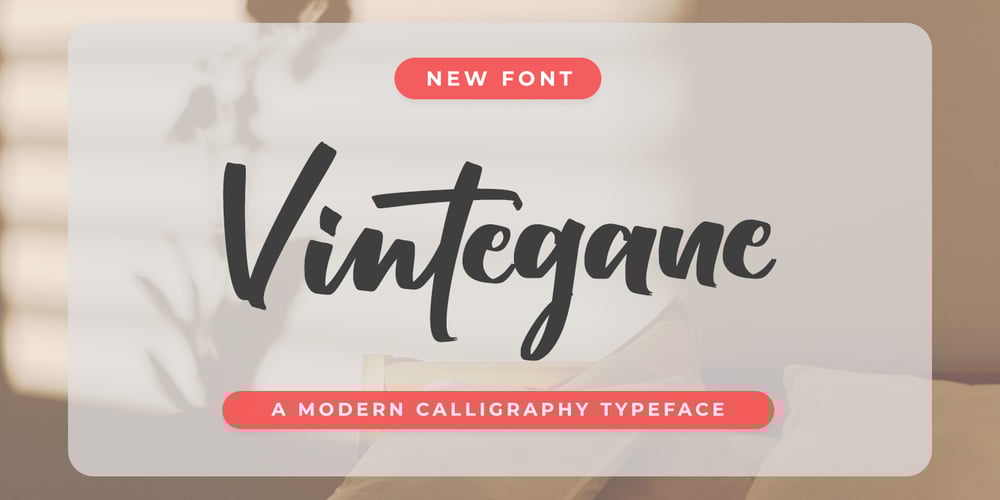
Vintegane Font Family was designed by Hayinah and published by Rockboys Studio. Vintegane contains 1 styles and family package options. Vintegane Bold Script is modern script font perfect for a variety of projects. Every single letter has been carefully crafted to make your text look beautiful.